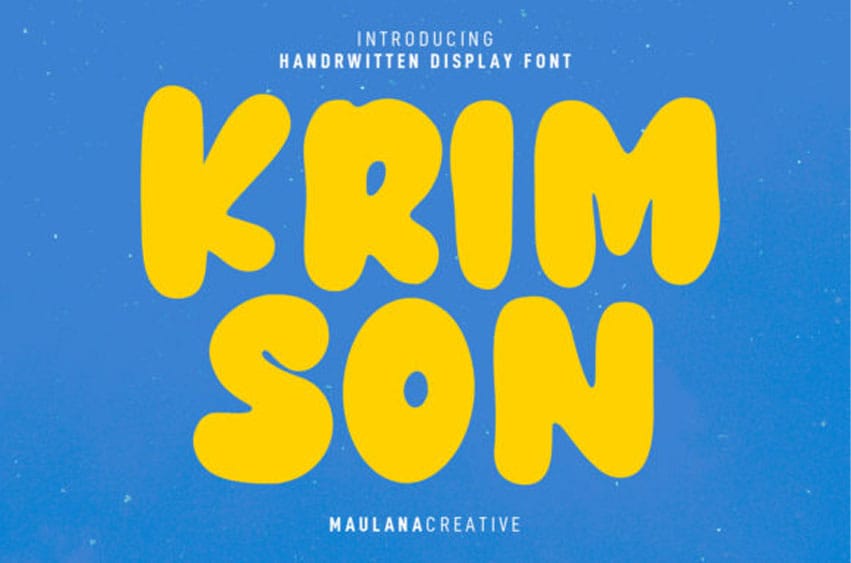
Krimson Font is a bouncy and cute display font.
Whether you are using it for cartoon-related designs, children’s games, quotes, titles, brand names, book covers, posters, or just any creation that requires a touch of joy, this font is a great choice.